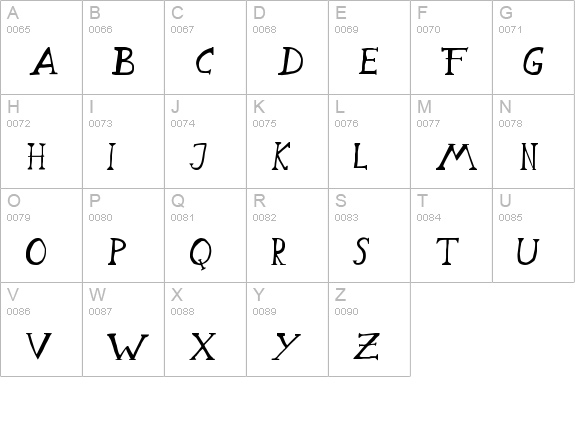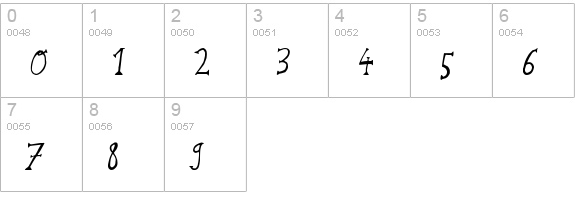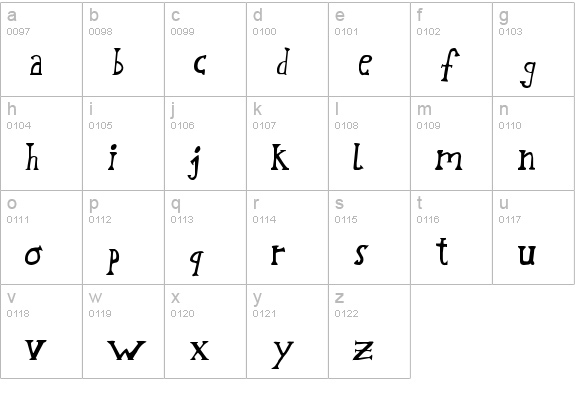
Schwabstrasse Font Details
Schwabstrasse font is a modern and stylish typeface that exudes elegance and sophistication. With its sleek lines and unique letterforms, this font is perfect for a wide range of design projects, from branding to editorial design. The versatility of Schwabstrasse font makes it a great choice for both print and digital applications. What's even better is that Schwabstrasse font is available for free download at FontsMarket.com. This means you can easily incorporate this beautiful font into your projects without any cost. Don't miss out on the opportunity to enhance your designs with the timeless appeal of Schwabstrasse font. Download it today and elevate your design game to the next level!